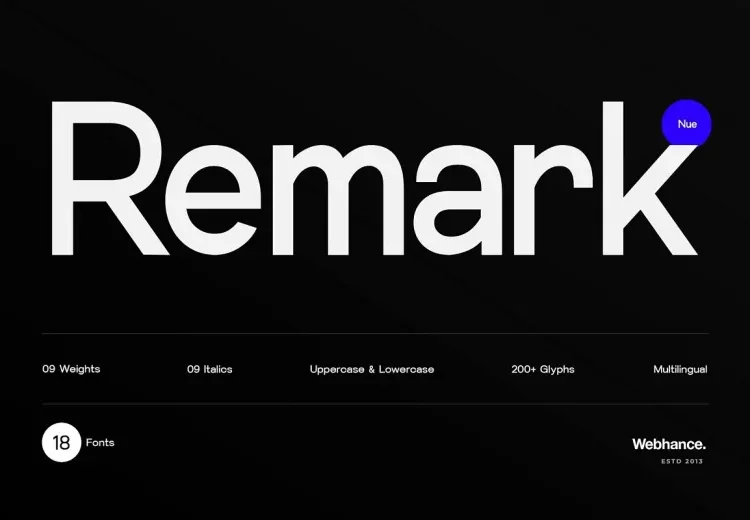
Remark Nue Font Family
Remark Nue is a versatile sans-serif font family designed to elevate your design projects with its contemporary and sophisticated aesthetic. This font family offers a comprehensive range of nine carefully crafted weights, from the delicate Thin to the robust Heavy, ensuring you have the perfect typographic tool for any project. The inclusion of matching italics for each weight doubles the versatility, providing you with a total of 18 fonts to work with, each meticulously designed to deliver clean lines and a polished appearance.
The Remark Nue font family is ideal for a wide spectrum of business-related projects. Whether you’re crafting logos, developing websites, or creating posters, this font offers the modernity and clarity needed for professional-grade results. Its high readability and clean cuts make it an excellent choice for creatives on social media, including reel texts and video captions, where clear communication is key. Additionally, Remark Nue enhances visual content like YouTube thumbnails, ensuring your designs stand out in a crowded digital space.
Designed with a focus on usability and elegance, Remark Nue provides the perfect balance of form and function. Whether you’re working on corporate branding, digital content, or print media, this font family delivers a sophisticated look that resonates with contemporary trends while maintaining timeless appeal.